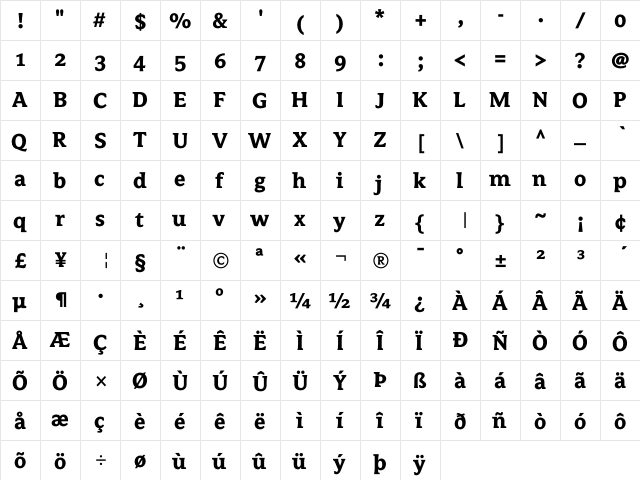
Avance Bold
Design Context for Avance Typeface
Avance takes a measured approach to typography — its balanced proportions and neutral character make it a reliable workhorse for both digital and print work. The heavy weight commands attention and anchors typographic hierarchies.